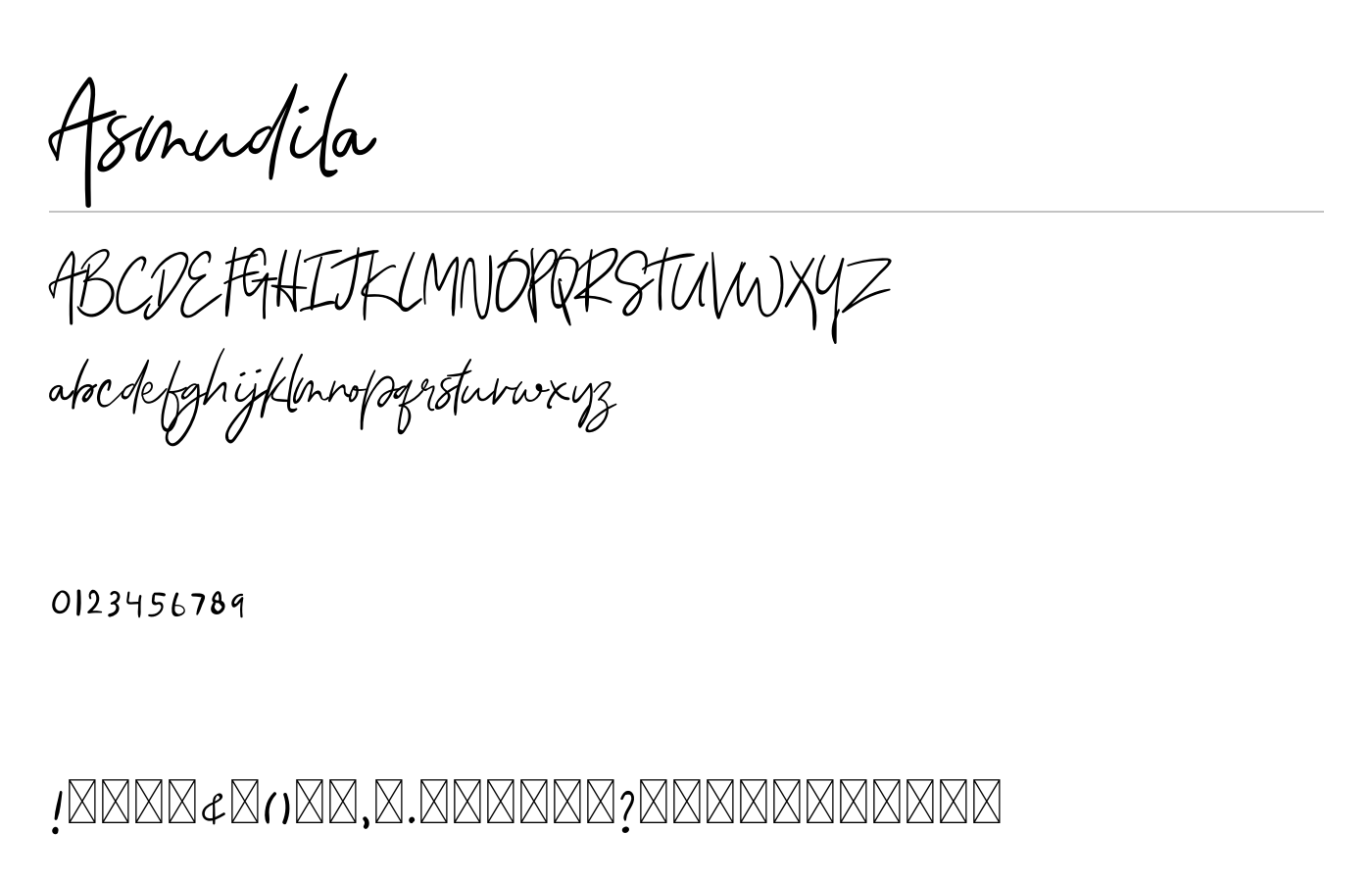
Asmudila is a casual, handwritten script font characterized by its slender, flowing strokes and energetic, slightly irregular letterforms. It has a lively, personal feel with high contrast between thin and thicker lines, making it perfect for adding a warm, creative touch to branding, invitations, and editorial headlines. This font’s informal elegance works well where a friendly, approachable vibe is desired.
Asmudila Font
About Asmudila Font
| Font family | Asmudila Font |